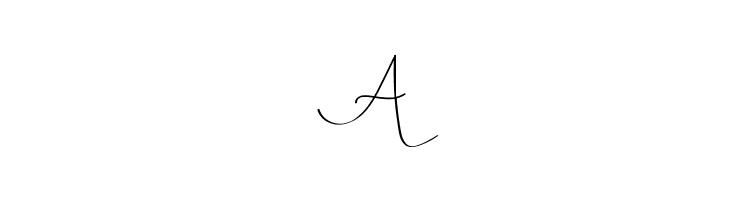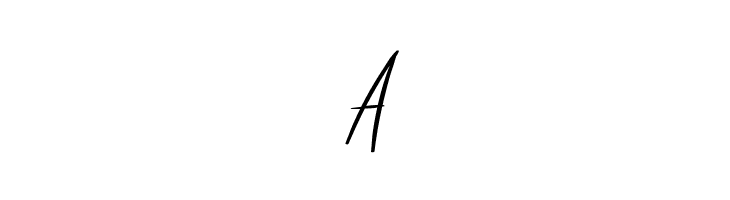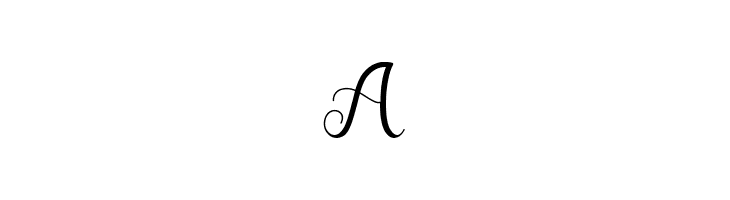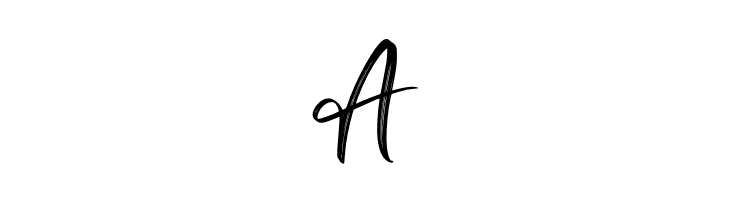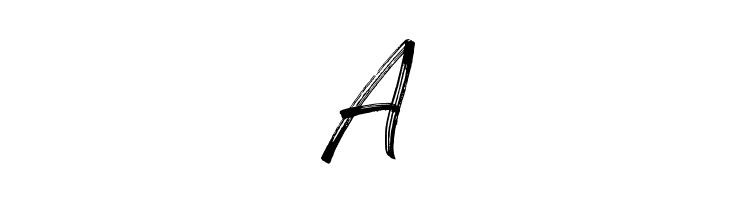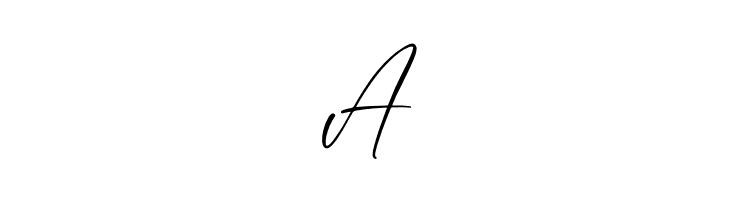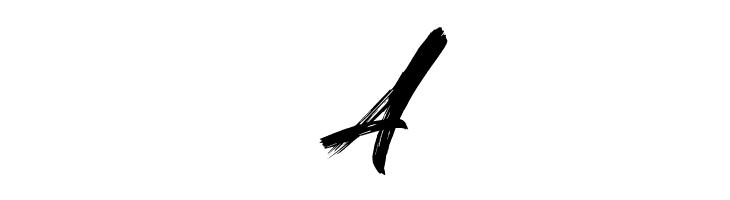
A playful and elegant script font with flowing cursive letters.
A bold, playful font with thick, rounded strokes and a whimsical touch.
A delicate and elegant script font with flowing, graceful strokes.
A bold, brush-style font with dynamic, hand-painted strokes.
A bold, brush-style italic font with dynamic strokes and fluid motion.
A lively, expressive handwritten font with bold, brush-like strokes.
A lively, expressive handwritten font with fluid strokes and a natural flow.
A dynamic handwritten font with fluid, expressive strokes and playful curves.
A playful, handwritten font with flowing, interconnected letterforms and a whimsical style.
A playful, handwritten-style font with bold, rounded strokes.
A playful, casual handwritten font with smooth, flowing lines.
A modern, handwritten font with fluid, connected strokes and a personal touch.
A bold, brush-style font with dynamic, handwritten strokes.
A dynamic handwritten font with fluid strokes and an artistic brush-like texture.
A lively handwritten font with expressive and dynamic strokes.
A bold, handwritten-style font with rounded, playful characters.
A bold, playful sans-serif font with a handwritten style.
A cursive script font with elegant loops and swashes, offering sophistication and grace.
A delicate and elegant script font with flowing, interconnected letters.
An elegant, flowing script font with graceful curves and artistic flair.
A refined, cursive script font with elegant, flowing lines.
A playful, casual handwritten font with smooth, flowing strokes.
An elegant script font with intricate swirls and loops, perfect for sophisticated designs.
A flowing, elegant cursive font with interconnected letters and a modern touch.
A lively and elegant script font with flowing, cursive letterforms.
An elegant script font with flowing, cursive strokes and refined style.
A stylish, elegant script font with fluid, cursive strokes and a modern flair.
A playful, hand-drawn font with bold, irregular strokes.
A bold, dynamic script font with flowing, cursive characters.
A bold, cursive font with elegant, interconnected characters and a modern yet classic appeal.
A graceful and flowing handwritten script font with elegant curves.
An elegant, flowing script font with ornate, cursive letterforms.
A lively, expressive handwritten font with dynamic strokes.
An ornate and decorative font with whimsical embellishments and bold strokes.
A modern, elegant font with high contrast and sharp serifs.